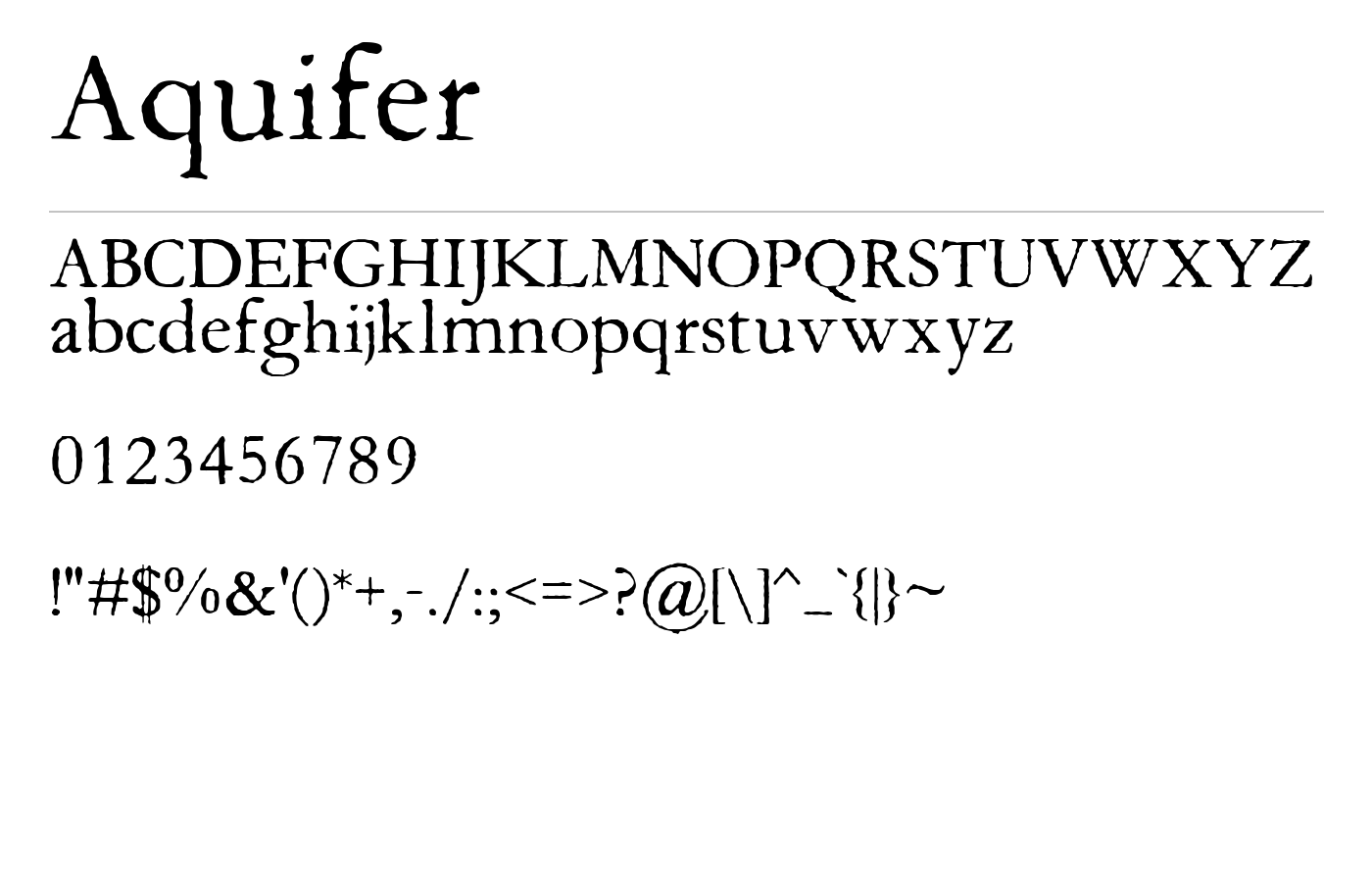
Aquifer is a serif font with a hand-crafted, slightly rough texture that gives it a unique, organic feel. Its moderate contrast and distinct, somewhat irregular letterforms evoke a vintage or literary character, making it ideal for projects seeking a touch of elegance with personality, such as book covers, editorial design, or artisan branding. This font works especially well where a classic yet approachable style is desired, blending tradition with subtle creativity.
Aquifer Font